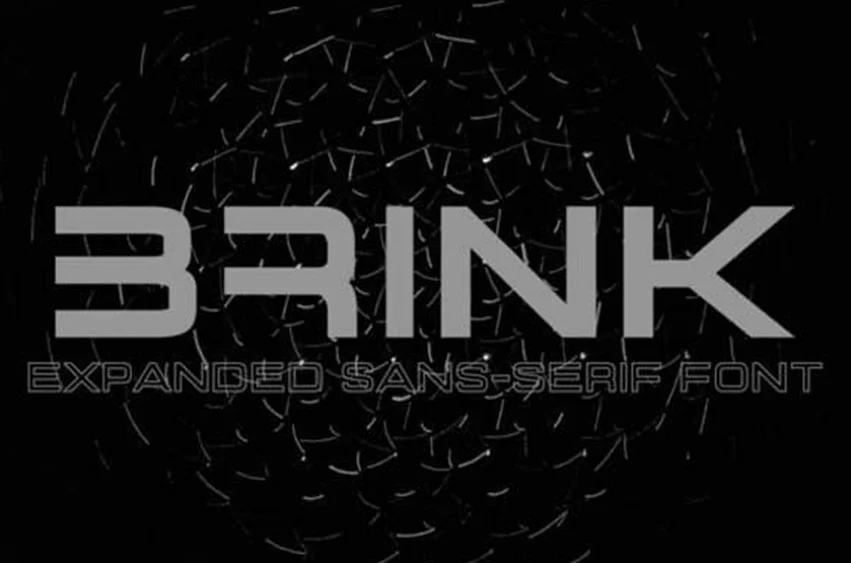
Brink Font is a bold and assertive display font. This font is ideal for writing web designs, business cards, or pretty much anything else that requires a unique touch.